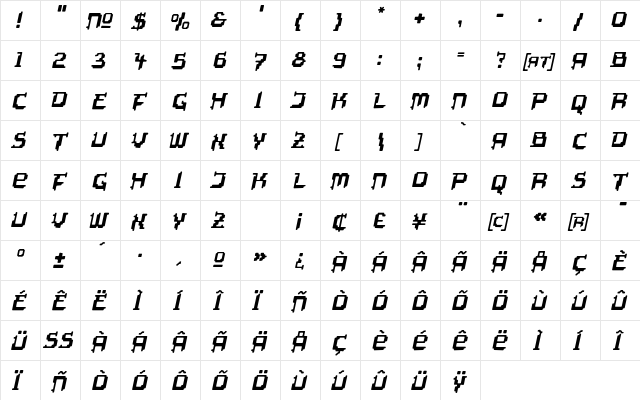
Tipi Slanted Electric
| Foundry | Schmalfett |
| Designer | Thomas Mettendorf |
Design Context for Tipi Typeface
Tipi has a distinctly futuristic character, with geometric precision and clean angles that feel at home in technology, gaming, and sci-fi contexts. Its italic angle brings a sense of urgency and motion to the letterforms.